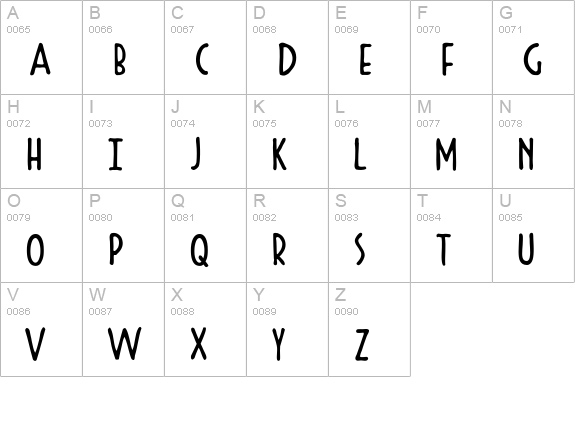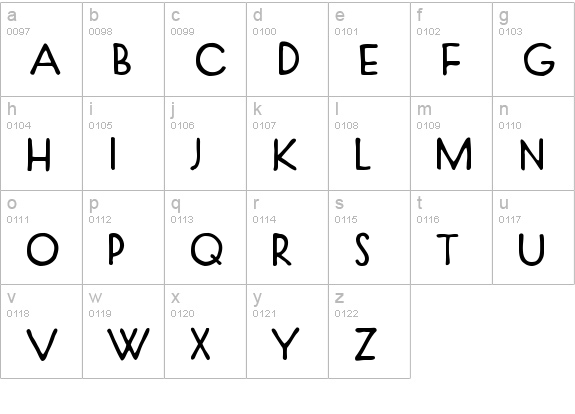
CCDutchCourage-Draught Font Details
CCDutchCourage-Draught font is a stunning display typeface that exudes a sense of boldness and confidence. Its unique design features intricate details and a strong presence that make it perfect for headlines, logos, and other impactful design projects. The font's distinct style sets it apart from traditional fonts, making it a great choice for those looking to make a statement with their typography. What makes CCDutchCourage-Draught font even more appealing is that it is available for free download at FontsMarket.com. This means that anyone can easily access this striking font and use it in their design projects without any cost involved. Whether you're a graphic designer, a student, or anyone looking to add a touch of boldness to your creations, CCDutchCourage-Draught font is a fantastic choice that won't break the bank. Download it today and unleash your creativity with this eye-catching and distinctive typeface.